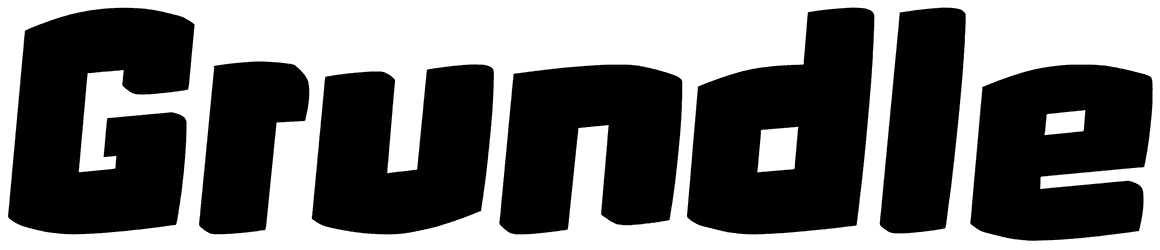
Turnpike Font
Texts, websites, apps, signages, and user interfaces require a font that is casual and friendly but modern and playful at the same time. So for that, we offer you Turnpike which is a sans-serif font that you can put to good use.
This free wide font comes with an awesome collection of characters. You find the uppercase of the alphabet, the numbers, and the punctuation marks in this collection.
Designed by: Font Diner